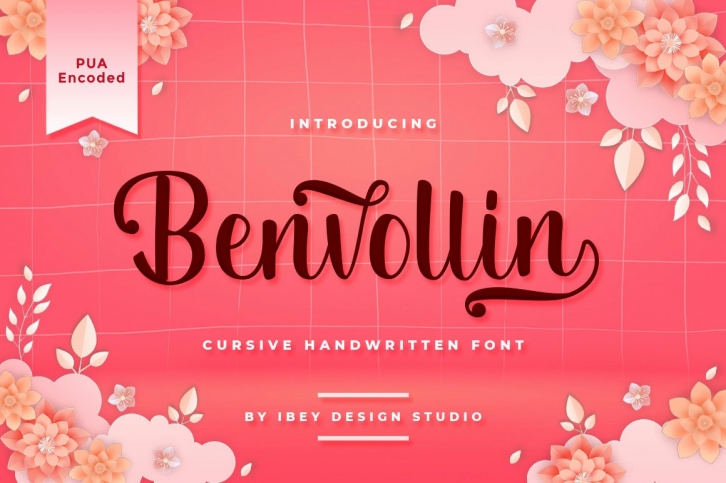
Benvollin is a beautiful font that was designed by Ibey Design. It's a great choice for designers and creatives who need such a font. It was released on December 22, 2021 and the file size is 3.7 MB. Benvollin may give a more youthful, expressive and casual look to your project. It is a very beautiful, refined, elegant, and high-quality font.